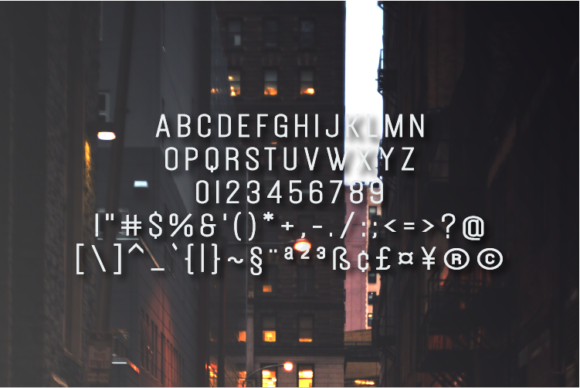
Introduction to Realwano Font
Have you ever been working on a creative project, pouring your heart and soul into it, only to realize that the font you’re using just doesn’t cut it? The perfect design can make all the difference, and that’s exactly where the Realwano Font comes in – a high-quality sans serif font that’s as versatile as it is modern.
With its clean and minimalist aesthetic, the Realwano Font is the perfect design resource for any project. Whether you’re creating a logo, branding, social media graphics, or even a DIY project, this font is sure to elevate your design to the next level.
Key Features of Realwano Font
- High-quality design resource with a unique, modern aesthetic.
- Features a transparent background, making it ideal for creative projects requiring subtle, non-distracting typography.
- Designed with high-resolution clarity, ensuring crisp and clear text even at larger font sizes.
- Perfect for use in creative projects, such as branding, typography-based art, and editorial design, where a sophisticated and refined look is desired.
Honest Review: Realwano Font
I recently stumbled upon the Realwano Font, and I’m excited to share my thoughts with you. As a designer, I’m always on the lookout for high-quality design resources to enhance my creative projects. The Realwano Font is a great addition to any design arsenal.
- ✨ High-quality typography with a unique aesthetic.
- ✨ Transparent background, making it easy to use in various design scenarios.
However, I do have some minor issues with the font:
- ⚠️ Limited font styles available (only a few weights and styles).
- ⚠️ Not suitable for large body text due to its ornate design.
Overall, I’m impressed with the Realwano Font’s design and functionality. It’s a great choice for designers who want to add a touch of elegance to their creative projects. While it may have some limitations, it’s still a valuable resource for any design enthusiast.
Common Use Cases for Realwano Font
The Realwano Font is suitable for a wide range of creative projects, including graphic design, digital art, and print materials. Its versatility and high-quality design make it an excellent choice for designers and artists looking to add a touch of elegance to their work.
Is the Realwano Font available with a transparent background?
Yes, the Realwano Font is available with a transparent background, making it perfect for use in creative projects that require a clean and minimalist design aesthetic.